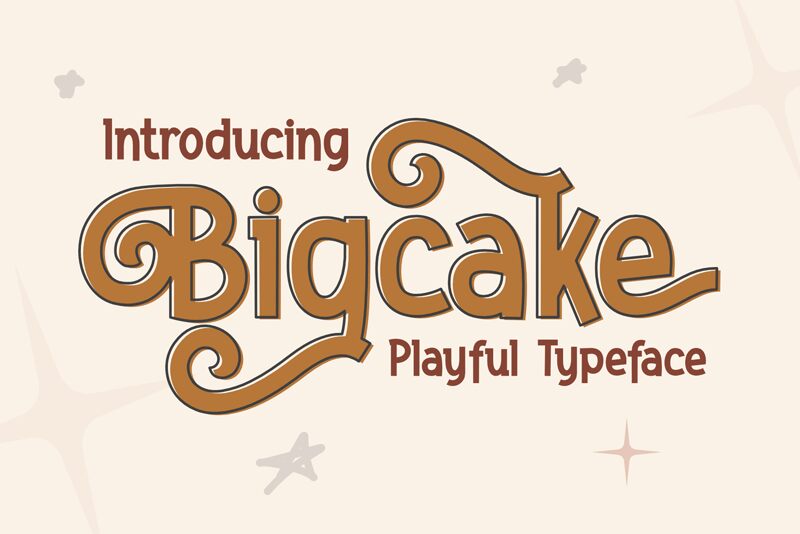
Bigcake is a playful display font designed by Toni Dzulham. It features a cartoonish style and adds an element of fun to projects. Use it to create eye-catching posters, logos, or cartoons!